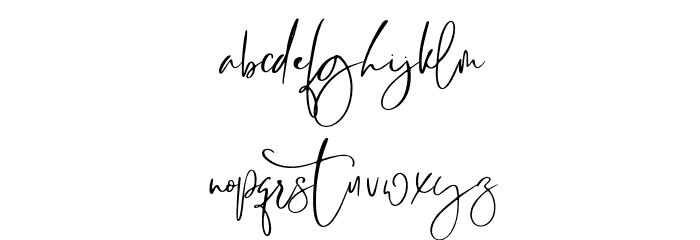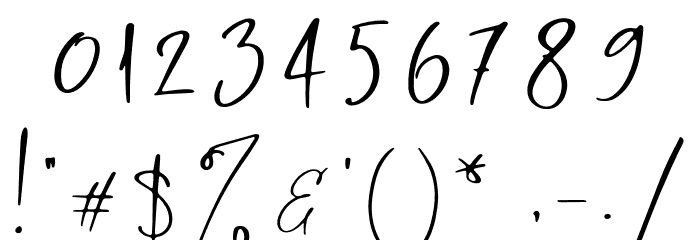
RastyKing Regular Font
This font exhibits a lively and expressive handwritten style, characterized by its flowing, cursive letterforms. The uppercase letters are bold and dynamic, with exaggerated loops and flourishes that give a sense of movement and elegance. The lowercase letters maintain a consistent style, with smooth, connected strokes that enhance readability while preserving the artistic flair. The numerals are distinct and easy to read, featuring a slight slant that complements the overall aesthetic. Special characters are creatively designed, adding a playful touch to the font. This font is perfect for projects that require a personal, artistic touch, such as invitations, greeting cards, or branding materials.
A lively, expressive handwritten font with flowing cursive letterforms.
- Proposed Projects: Ideal for invitations, greeting cards, branding, and artistic projects.
- Use Case: Headlines, Logos, Artistic projects